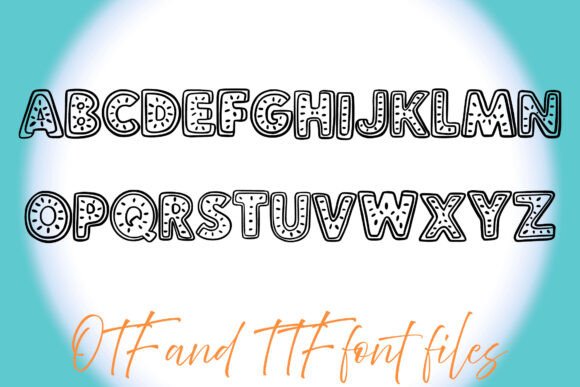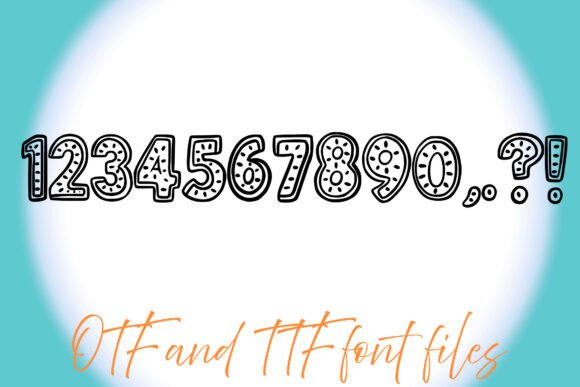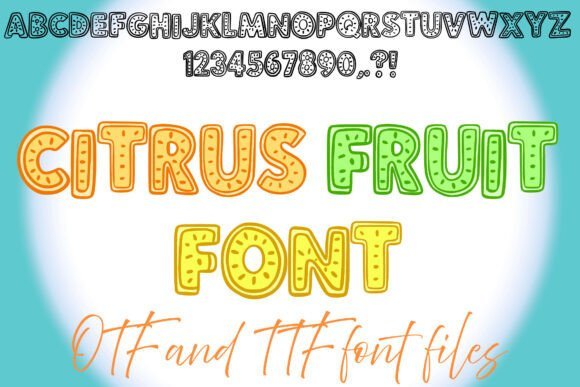
Introduction to Citrus Fruit Font
Juicy and vibrant, Citrus Fruit Font is a zesty display typeface that’s full of flavor.
Designed with fun citrus textures and a playful personality, this font is perfect for food packaging, children’s designs, summer invitations, and anything that needs a fresh, fruity twist .
Key Features of Citrus Fruit Font
Why Choose Citrus Fruit Font?